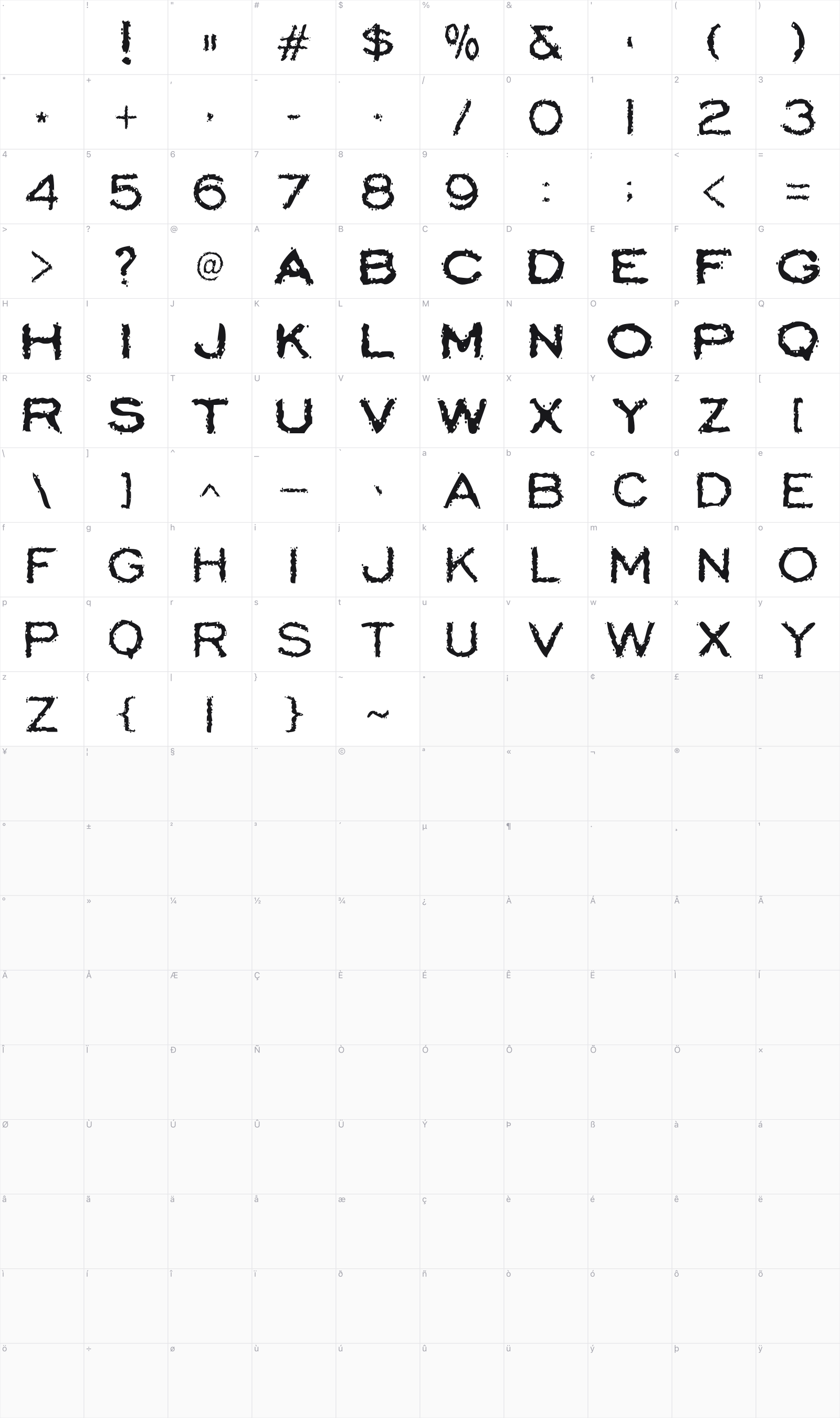
Scatterbrained Restrained
Scatterbrained Restrained is a rough, uppercase display face from StimulEye Fonts with bold letterforms that look like they've been printed on a worn surface and left to degrade. The heavy texture and gritty edges give it a raw, physical quality that works well for headlines, gig posters, and editorial layouts where you want type that feels lived-in rather than designed. Despite the distressing, the characters hold their shape and stay readable at larger sizes.